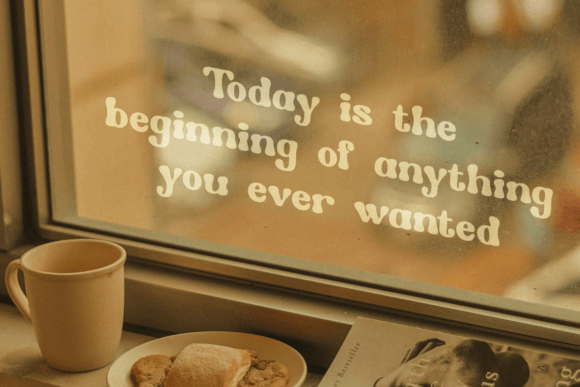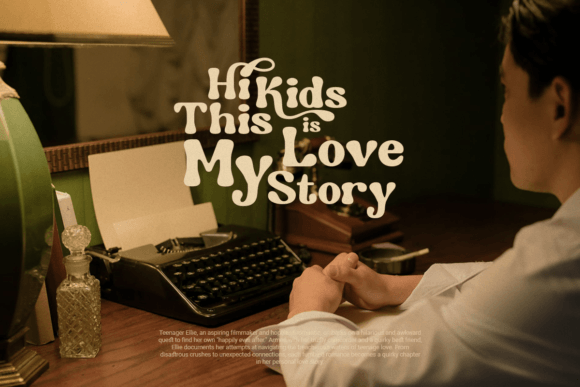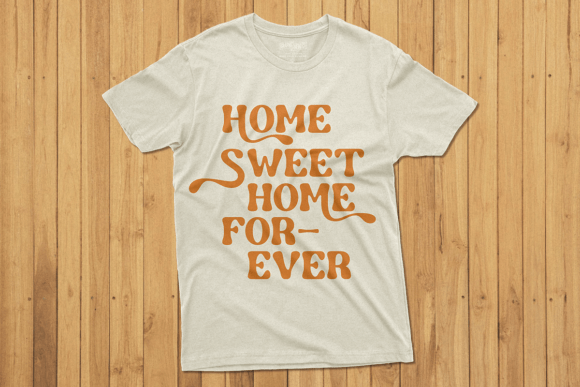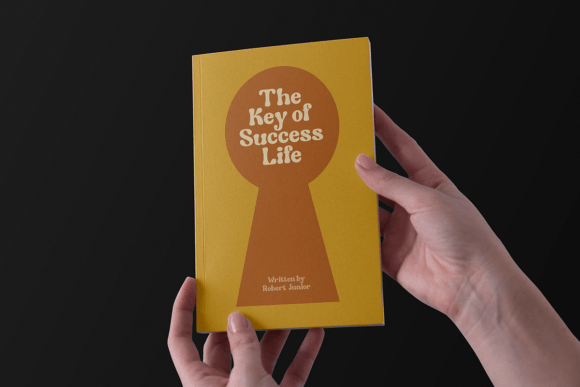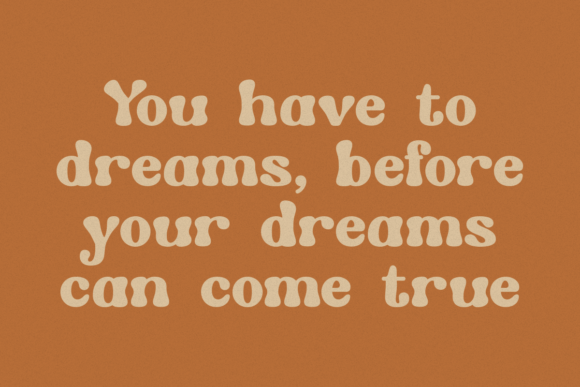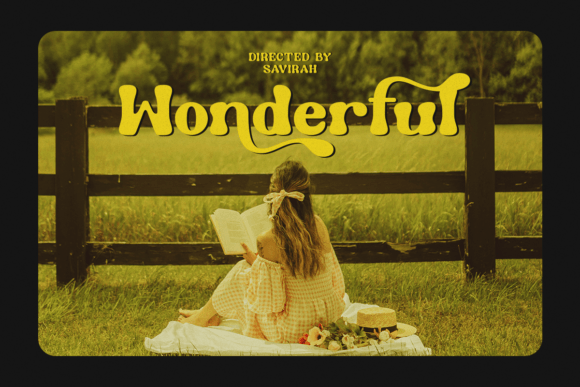
Introduction to Mainframe Font
Introducing Mainframe, a stylish retro font from Windfall Studio.
Published in 2024, this font captures the essence of a bygone era while adding a modern twist Mainframeโs unique design is perfect for projects that need a blend of nostalgia and contemporary flair.
Key Features of Mainframe Font